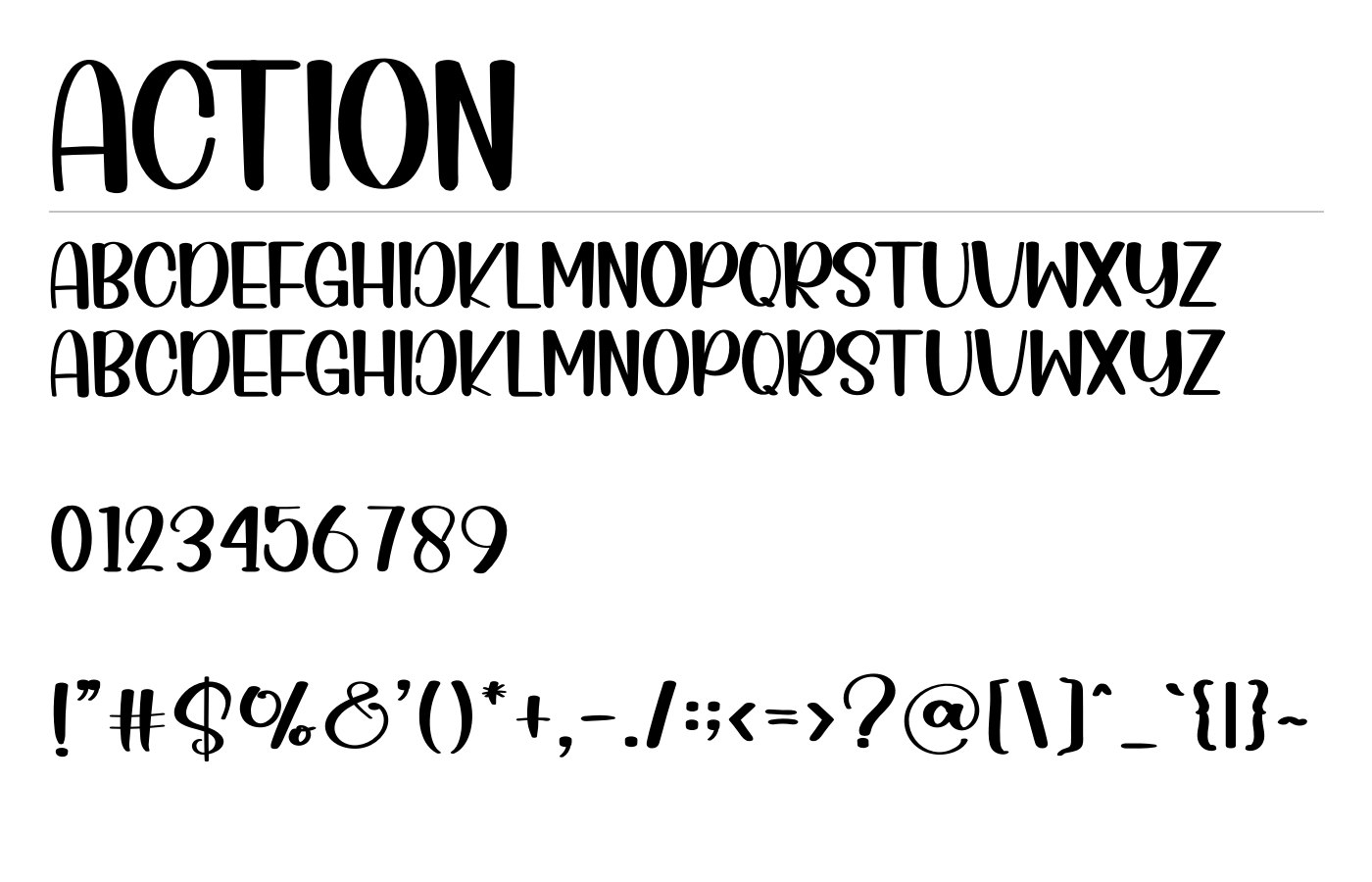
Action Font is a tall, playful sans serif with a hand-drawn feel, featuring narrow letterforms and varied stroke widths that give it lively character and energy. Its quirky curves and irregular shapes make it ideal for creative designs seeking a casual, fun, and approachable vibe, perfect for headlines, posters, and branding that wants to stand out with personality.
Action Font